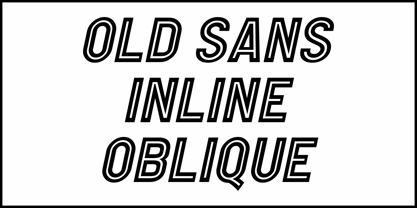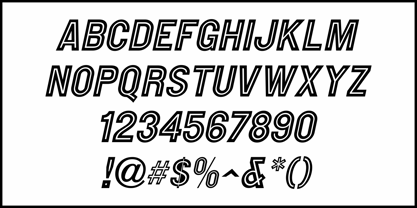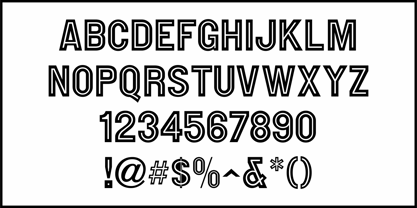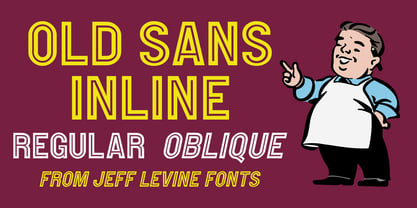
Old Sans Inline JNL
Various ads in issues of Moving Picture World from 1915 utilized a bold sans serif font with an engraved inline. This classic metal typeface has be redrawn digitally as Old Sans Inline JNL, and is available in both regular and oblique versions.